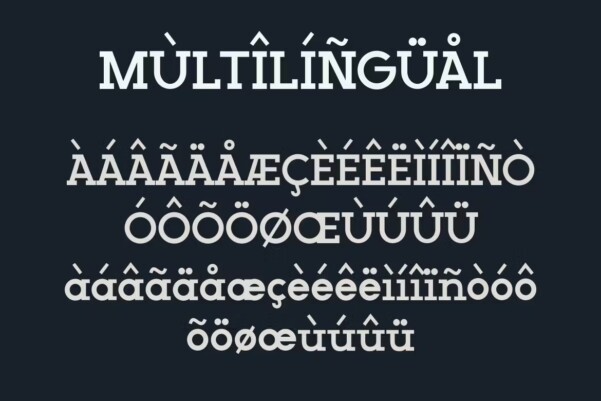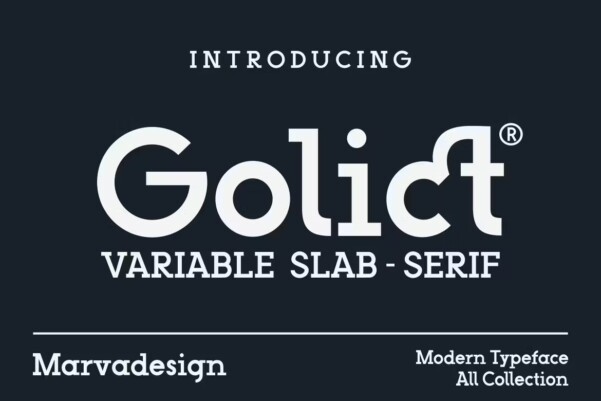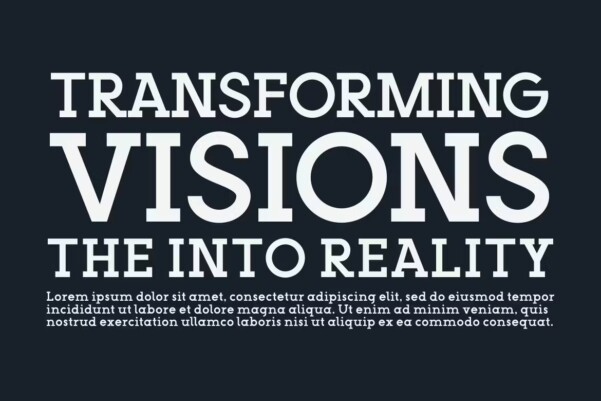
Golict Font
Golict Font – Modern Font GolictFont – Modern Font is a bold and authentic display font. The font is suitable for any branding project such as logo, Template design, product and many more. She is exceptional in a wide range of contexts